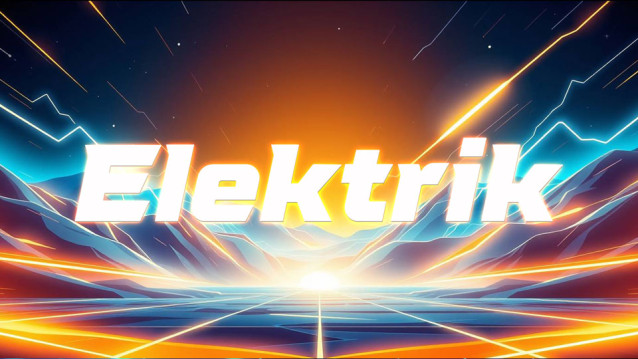
Elektrik Font – Inspired by the graphics of the LA Chargers NFL team. Ideal for sporting and scifi applications
Elektrik Font
| Classification: | Techno / Futuristic Fonts |